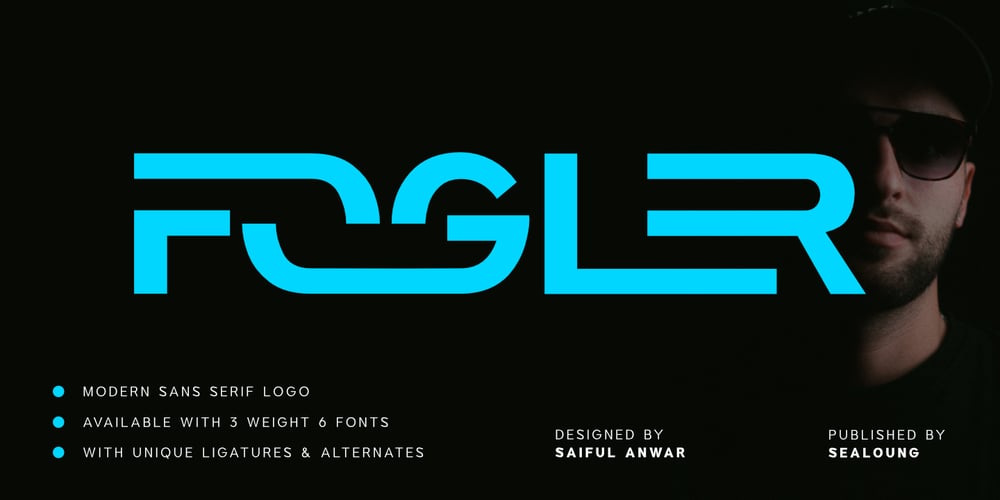
Fogler Font Family was designed by Saiful Anwar and published by Sealoung. Fogler contains 6 styles and family package options. Fogler is a Corporate Logo Sans Serif Font that is modern, well-balanced, and minimalist with a unique and iconic design. This sans serif font allows for easy combination and variation using ligatures and alternates, making it perfect for creating distinctive shapes in seconds. Ideal for branding projects, logos, posters, social media posts, advertisements, product packaging, designs, labels, photography, watermarks, invitations, stationery, and other projects, it offers high legibility.Included in the package : 3 weights of the Fogler font Italic versions of each weight Ligature characters Alternates characters Character set A-Z Numerals & punctuation Multilingual support Compatibility with PC & Mac For the best experience, it is recommended to use Affinity Designer, Affinity Photo, Adobe Illustrator and Adobe Photoshop. Enjoy our font! 🙂